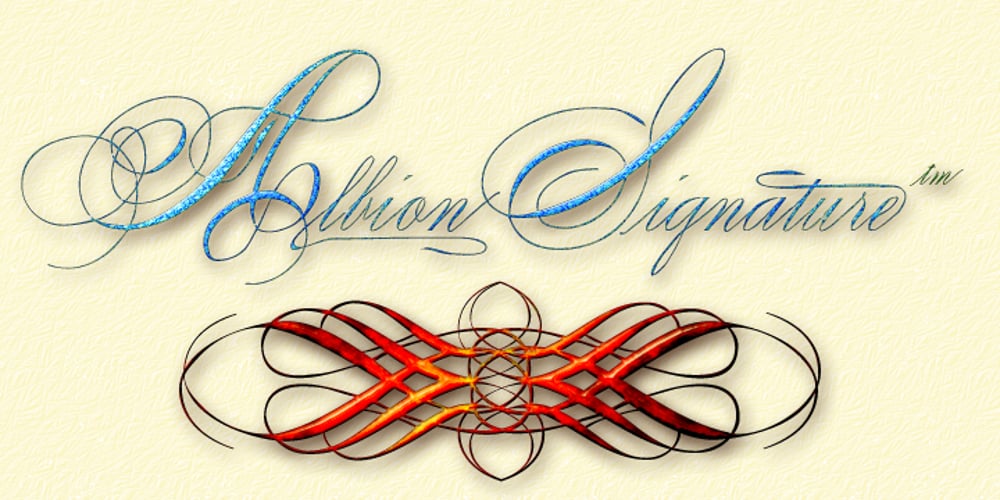
Albion Signature Font Family was designed by The Mighty Pete and published by TofinoType. Albion Signature contains 2 styles and family package options. Albion Signature is a value packed font of exceptional character, with lots of old world charm to make your next project personal and special. Containing over 2,200 glyphs, it’s large enough to handle any demanding project, big or small. It also contains over 400 flourishes in three sections (dingbats, geometric shapes, and misc. geometric shapes) in numerous styles, that can be used in endless combinations. It’s like several fonts in one. Everything you need to do a stellar project is included. A script font that lines up perfectly with a few extra endings and hidden treasures spread throughout. It also contains a complete easy to use PDF index, so you will be able to find exactly the glyph you are looking for fast. This font can only enhance the fonts that you already own, making them more versatile and useful. On its own, it is a very elegant calligraphy script, that will make every project you create look great. The capital letters overlap and intertwine just like in days gone by, for a unique style. Also included are tools that can give you very precise spacing, right inside a word processor. Usage: Photoshop styles, InDesign, personal promotion logos, monograms & signatures…. That’s where it shines, yet it’s still great for art, cards, fancy documents, really fancy labels & even notes to Mom. Imagine, most people used to write letters like these at one time. Now you too can have documents that look like the work of a studied penman.